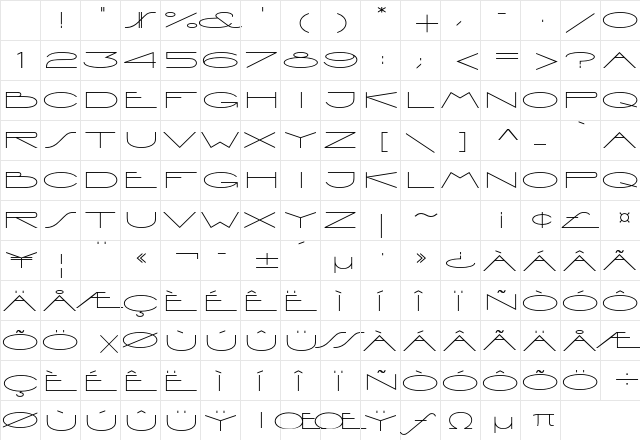
Complete Vienna Extended Std Regular glyph index. Displaying only characters natively supported by Vienna Extended Std Regular font.
Vienna Extended Std is a composed and adaptable typeface that performs quietly and consistently across a wide range of design contexts.